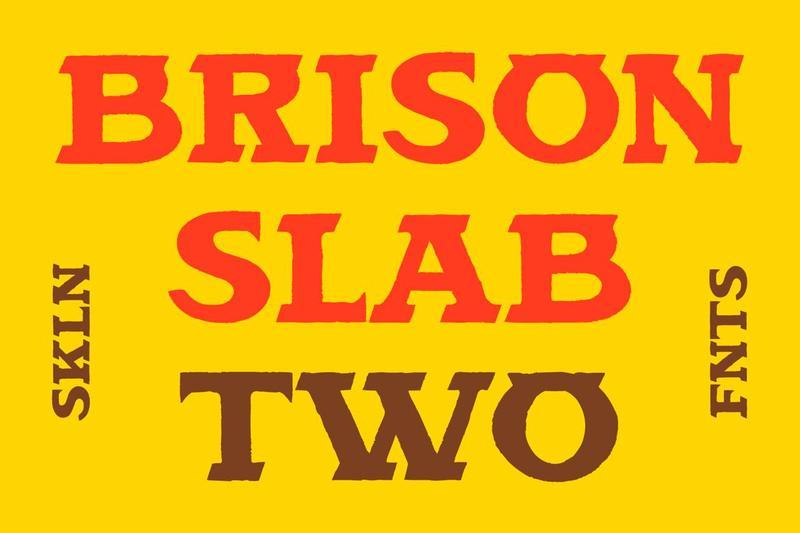
Brison Slab Two is a bold retro western font crafted for designers who want authentic vintage energy with strong commercial versatility. Inspired by classic smokehouse signage, desert roadside graphics, old ranch typography, western cinema posters, and vintage Americana packaging.
Handcrafted Display Typeface
Western Inspired Style